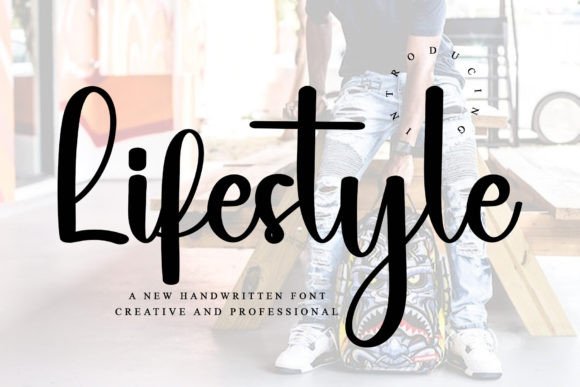
Introducing the Lifestyle Font, the ultimate choice for those seeking the perfect font to elevate their business plan. Created by PiPi Creative, this script font is not your ordinary typeface. It exudes an air of elegance and beauty, making it the go-to option for any project that requires a touch of sophistication.
With its neat and flawless handwritten style, the Lifestyle Font captures attention instantly. Its graceful strokes and timeless appeal will captivate your audience, leaving a lasting impression. Whether you're designing a logo, crafting an invitation, or creating stunning graphics, this font will effortlessly elevate your work to new heights.
What sets Lifestyle Font apart is its versatility. It seamlessly adapts to any design concept, effortlessly blending in or standing out, depending on your creative vision. From modern and sleek to classic and vintage, this font effortlessly caters to your unique style.
Looking for a font that reflects your business's professionalism and creativity? Look no further. Lifestyle Font has been carefully crafted to be the best font for a business plan. Its refined and stylish appearance exudes confidence, making it the perfect choice for presentations, reports, and other corporate materials. Impress your clients and stakeholders with a font that speaks volumes about your commitment to excellence.
But it's not just businesses that will benefit from Lifestyle Font. Let your imagination run wild and embrace the endless possibilities it offers. Craft beautiful wedding invitations that exude romance, design eye-catching social media posts that demand attention, or create stunning packaging that stands out on the shelves.
Fall in love with Lifestyle Font's distinct charm and let it transform your projects into works of art. Its emotional power, combined with its impressive range of glyphs and characters, makes it the ideal companion for designers and creatives alike.
Don't settle for ordinary fonts when you can have extraordinary. Experience the magic of Lifestyle Font and unlock a world of endless creativity. Download now and embark on a journey where every design becomes a masterpiece.